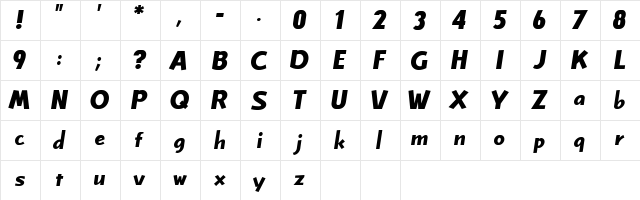
Celbo ExBold Font Preview
Celbo ExBold
Design Context for Celbo Typeface
Celbo takes a measured approach to typography — its balanced proportions and neutral character make it a reliable workhorse for both digital and print work. Its bold stroke weight gives it real presence on the page.